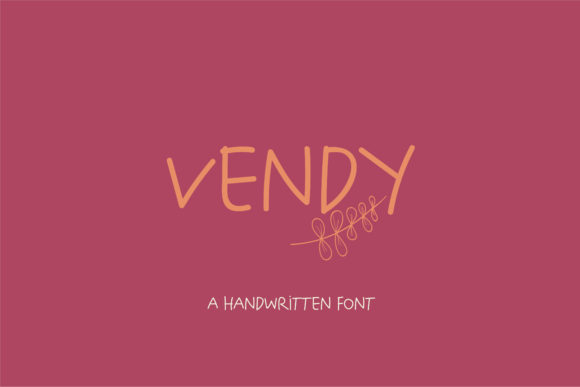
Vendy Font
**Dive into the Whimsical World of Vendy Font: Your Gateway to Captivating Kids Logos**
Step into the realm of cuteness with Vendy Font, a charming script that will infuse your kids' logos with an enchanting touch. Born from the creative minds at Fontana Studio, Vendy is the epitome of simplicity and playfulness, a perfect match for any project that demands a vibrant and youthful spirit.
With its authentic handwritten texture and quirky character, Vendy will transform your logos into irresistible magnets for young eyes. Its childlike charm will evoke a sense of wonder and innocence, perfectly capturing the essence of childhood dreams and aspirations.
Unlock your imagination and let Vendy guide you through a world of endless possibilities. Adorn your invitations with an air of playful elegance, craft greeting cards that overflow with warmth and creativity, and bring a touch of whimsy to all your crafting adventures. With Vendy, every project becomes a canvas for your imagination, where the boundaries of creativity dissolve.
**Why Choose Vendy Font for Your Kids' Logos?**
Embrace the power of Vendy Font and witness the transformation in your kids' logos:
* **Captivating Cuteness:** Vendy's adorable handwritten style exudes an irresistible charm that instantly attracts attention, making your logos a beacon of delight for children.
* **Unleash Imagination:** Fuel your imagination with Vendy and design logos that spark creativity and ignite the boundless dreams of young minds.
* **Create Lasting Impressions:** Vendy's unique character ensures your logos stand out from the crowd, leaving an unforgettable mark on the hearts and minds of your target audience.
* **Versatile Appeal:** Vendy's versatility shines in both digital and print applications, making it the perfect choice for a wide range of projects, from enchanting invitations to heartwarming greeting cards.
**Embark on a Creative Adventure with Vendy Font**
Let Vendy Font be your guide as you embark on a creative adventure that knows no bounds. With its playful spirit and endless charm, Vendy will inspire you to create logos that captivate and connect with young hearts.